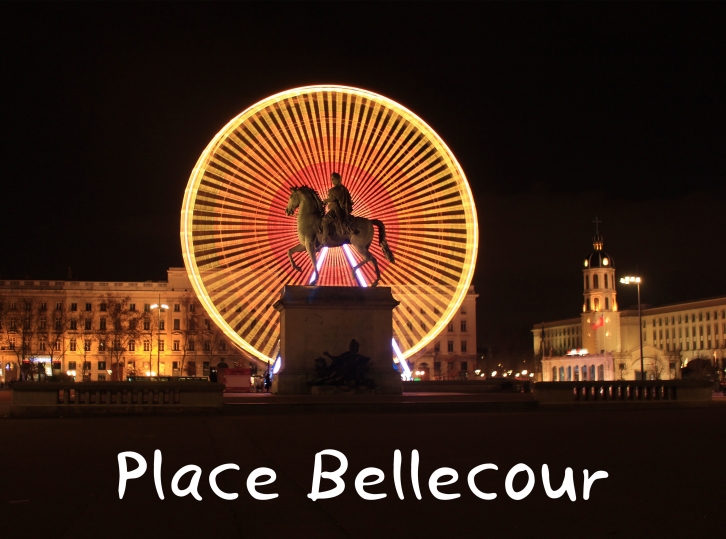
Place Bellecour is a simple, quirky, and adaptable handwritten font. You can successfully add this trendy font on party invitations, business cards, greetings cards, social media posts, wall art, and more.